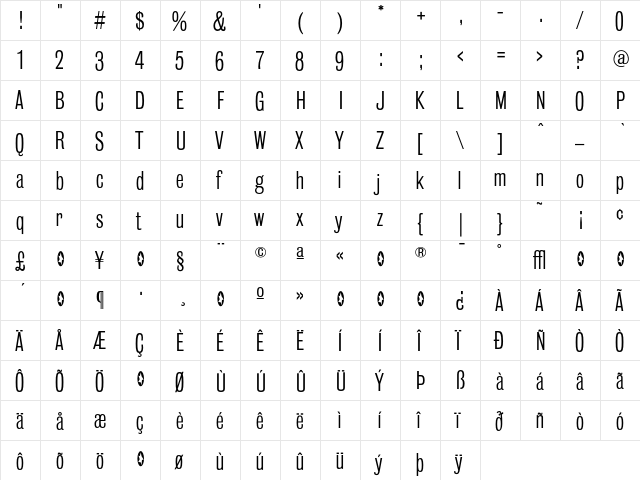
BureauGrotesque ThreeOne
Design Context for BureauGrotesque Typeface
BureauGrotesque takes a measured approach to typography — its balanced proportions and neutral character make it a reliable workhorse for both digital and print work.